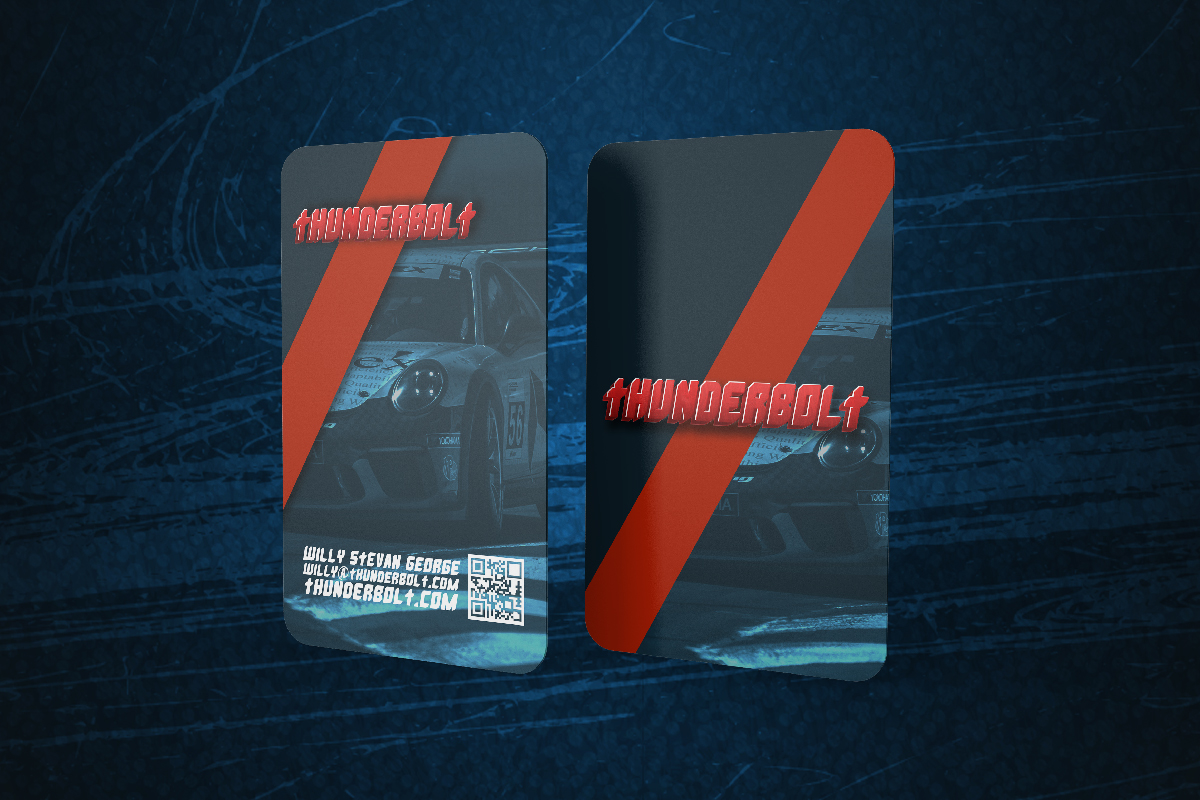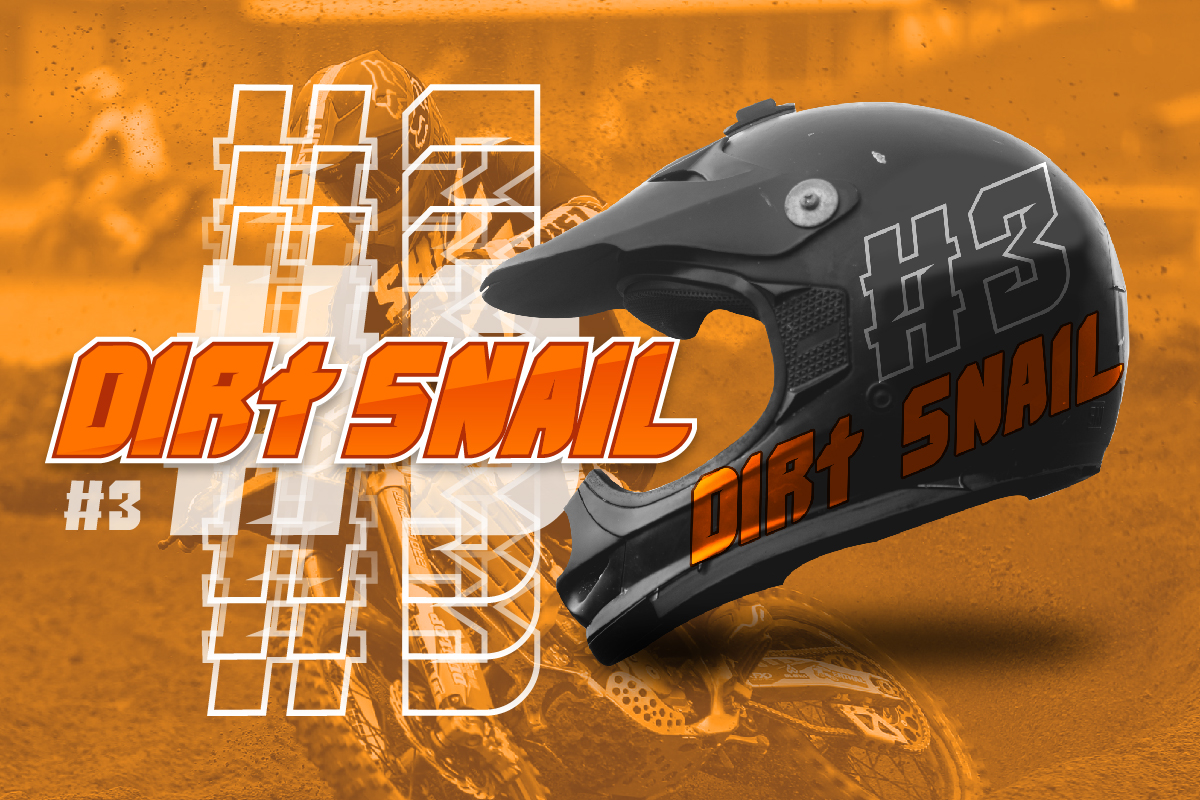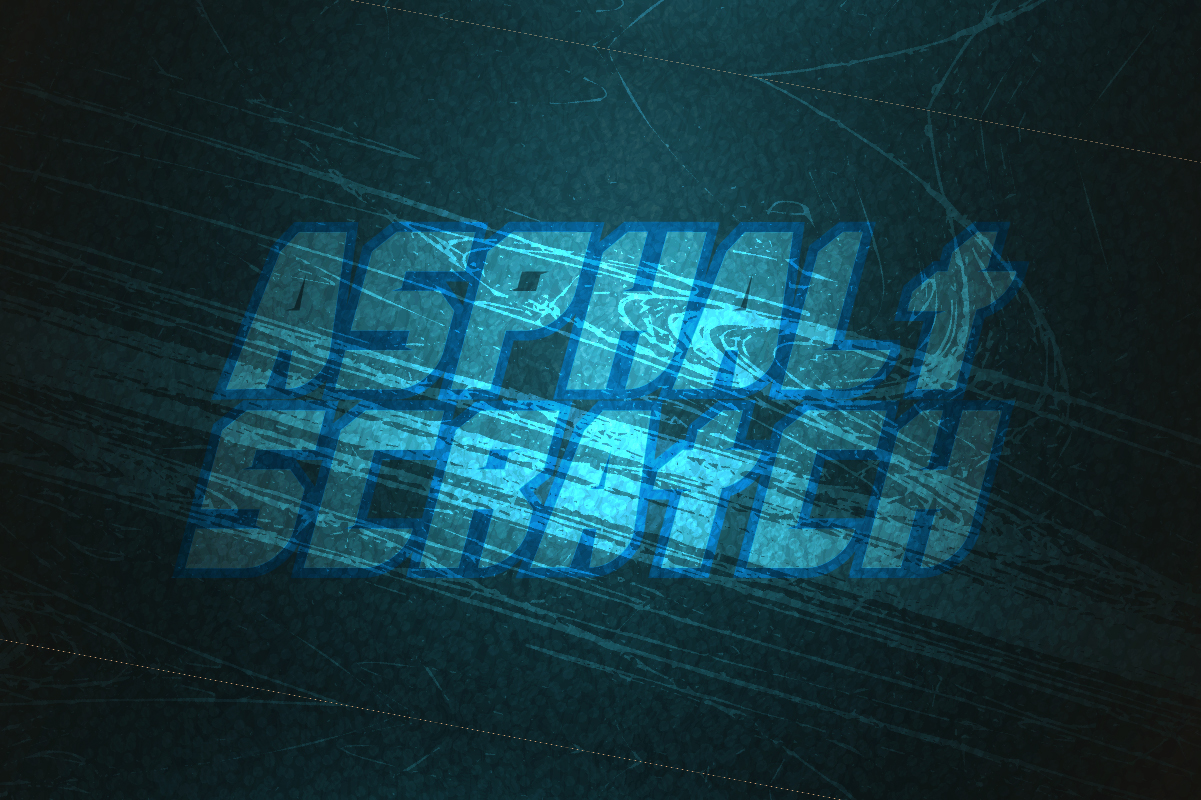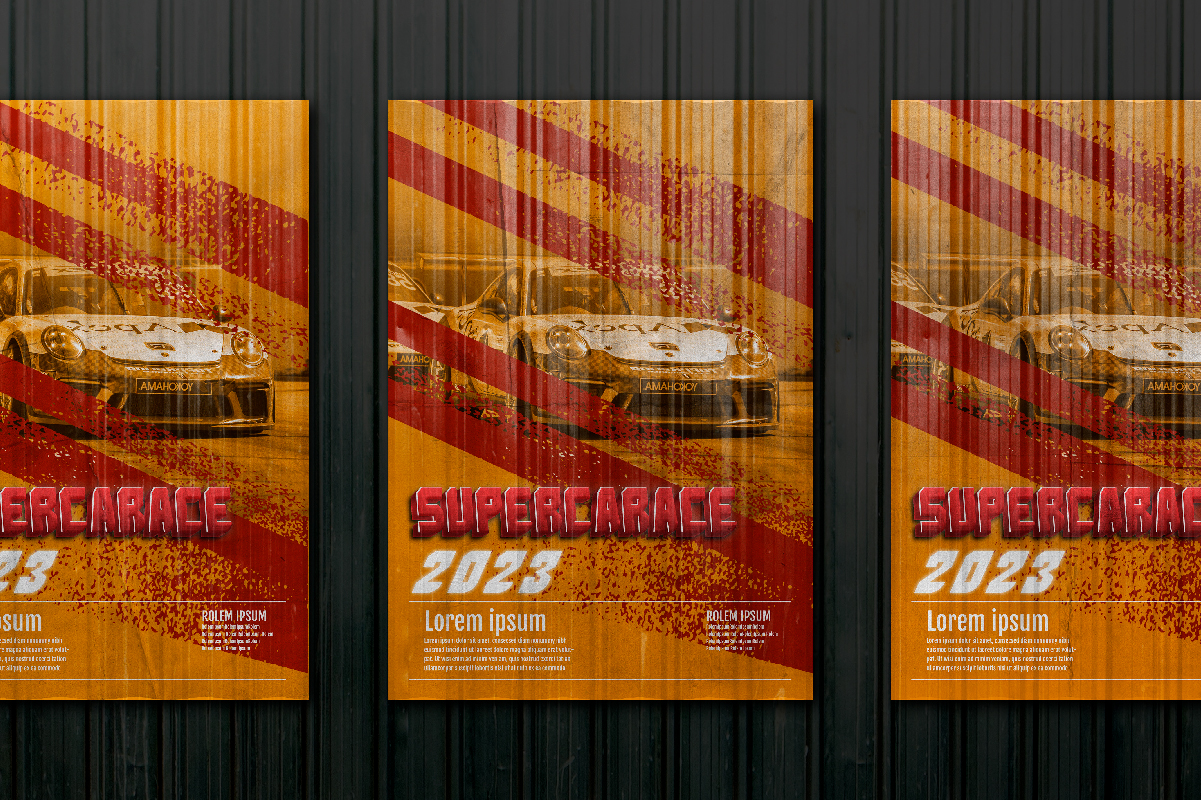
Race Break Display Font
This is a display sans serif font with speed and running special style. This font has modern and sporty style that looks great in just about every context. Race Break Font will be great for many industries : Sports, Movies, Startup, Tech Company, Futuristic company etc.